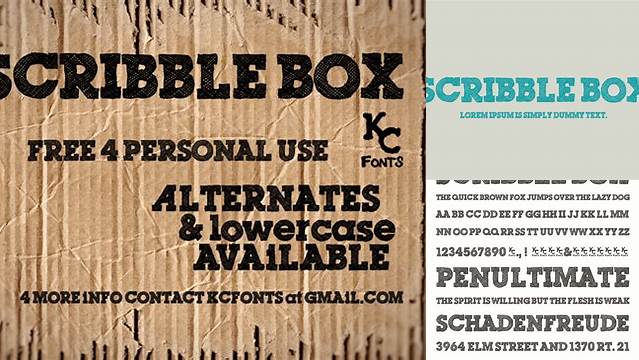
Hey guys! Ever stumbled upon a font that just screams fun and creativity? That's exactly what the Scribble Box font does! It’s quirky, it’s playful, and it’s perfect for adding a touch of whimsy to your projects. Whether you're designing a children's book, creating eye-catching social media graphics, or jazzing up your website, the Scribble Box demo font might be just what you need. In this article, we're diving deep into everything you need to know about this awesome font, from where to download it for free to how to use it effectively in your designs. So, buckle up and let's get scribbling!
Scribble Box Font: What Makes It Special?
Scribble Box Font is a typeface that mimics the look of hand-drawn scribbles, giving it a unique and informal feel. This makes it an excellent choice for projects that need a personal touch or a playful vibe. Unlike more formal fonts, the Scribble Box demo font has a relaxed and approachable quality that can instantly make your designs more engaging. The charm of this font lies in its imperfections – the slightly uneven lines and whimsical shapes create a sense of authenticity and creativity. This is what sets the Scribble Box Font apart from the rest, making it a go-to choice for designers looking to add a touch of personality to their work. If you're aiming for a design that feels handcrafted and full of character, the Scribble Box Font is definitely worth exploring. Its distinctive style can help your projects stand out and leave a lasting impression. Imagine the possibilities: logos, posters, greeting cards, and even website headers could all benefit from the playful energy of this font.
Using Scribble Box in Your Designs: Tips and Tricks
Okay, so you've got your Scribble Box font downloaded – now what? Using this font effectively in your designs is all about understanding its strengths and playing to them. Remember, the Scribble Box Font has a very distinctive, informal style. This means it works best in situations where you want to convey a sense of fun, creativity, or approachability. Think children's books, party invitations, quirky logos, or eye-catching social media graphics. One tip is to use the Scribble Box demo font sparingly. Because it's so unique, it can be overpowering if used in large blocks of text. Instead, try using it for headlines, titles, or short bursts of text. This allows the font to make a statement without overwhelming the overall design. Another trick is to pair it with a simpler, more legible font for body text. This ensures that your message is clear and easy to read, while still benefiting from the Scribble Box's playful charm. Experiment with different sizes, colors, and spacing to see what looks best for your project. With a little creativity, the Scribble Box Font can add a whole new dimension to your designs.